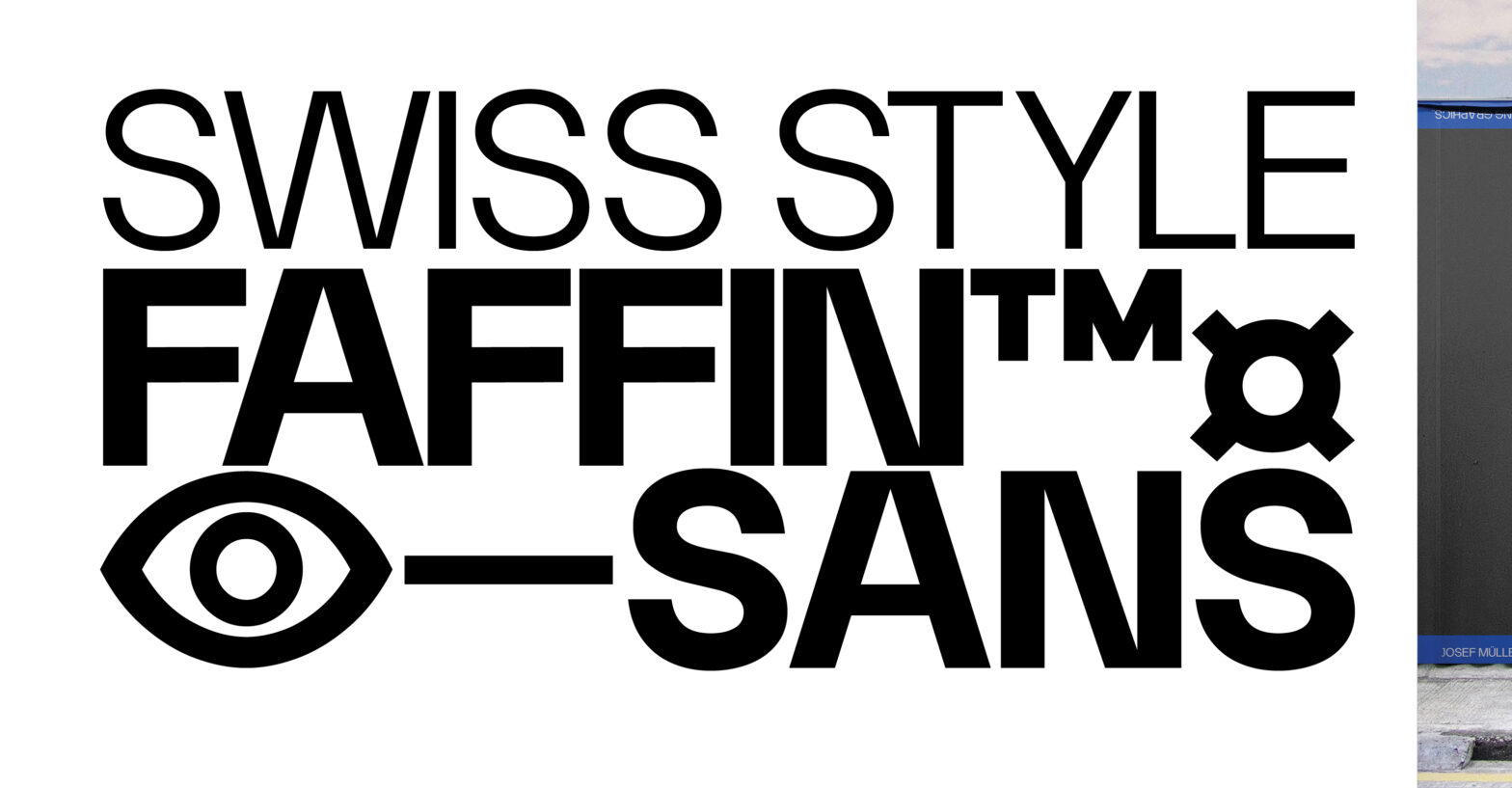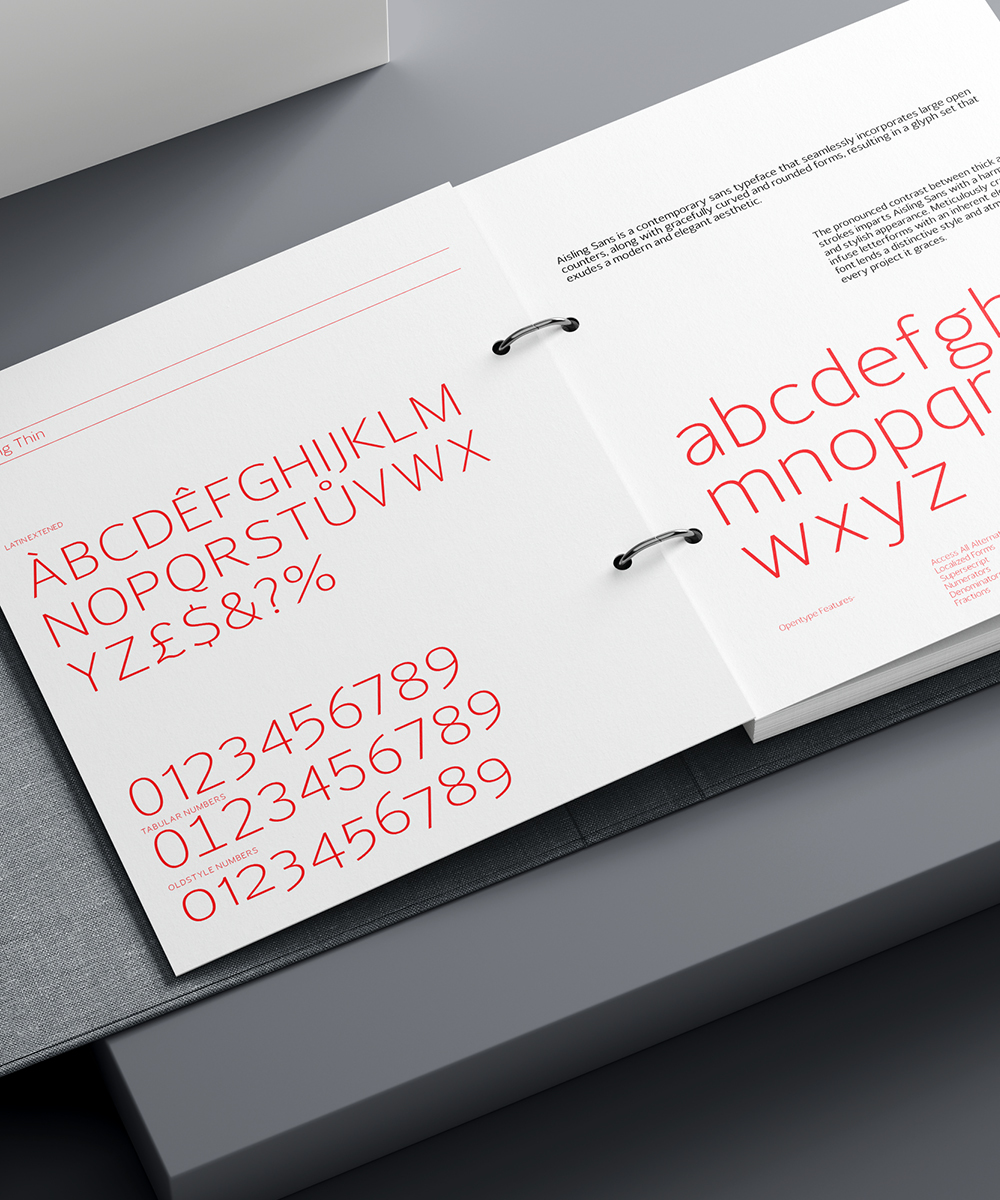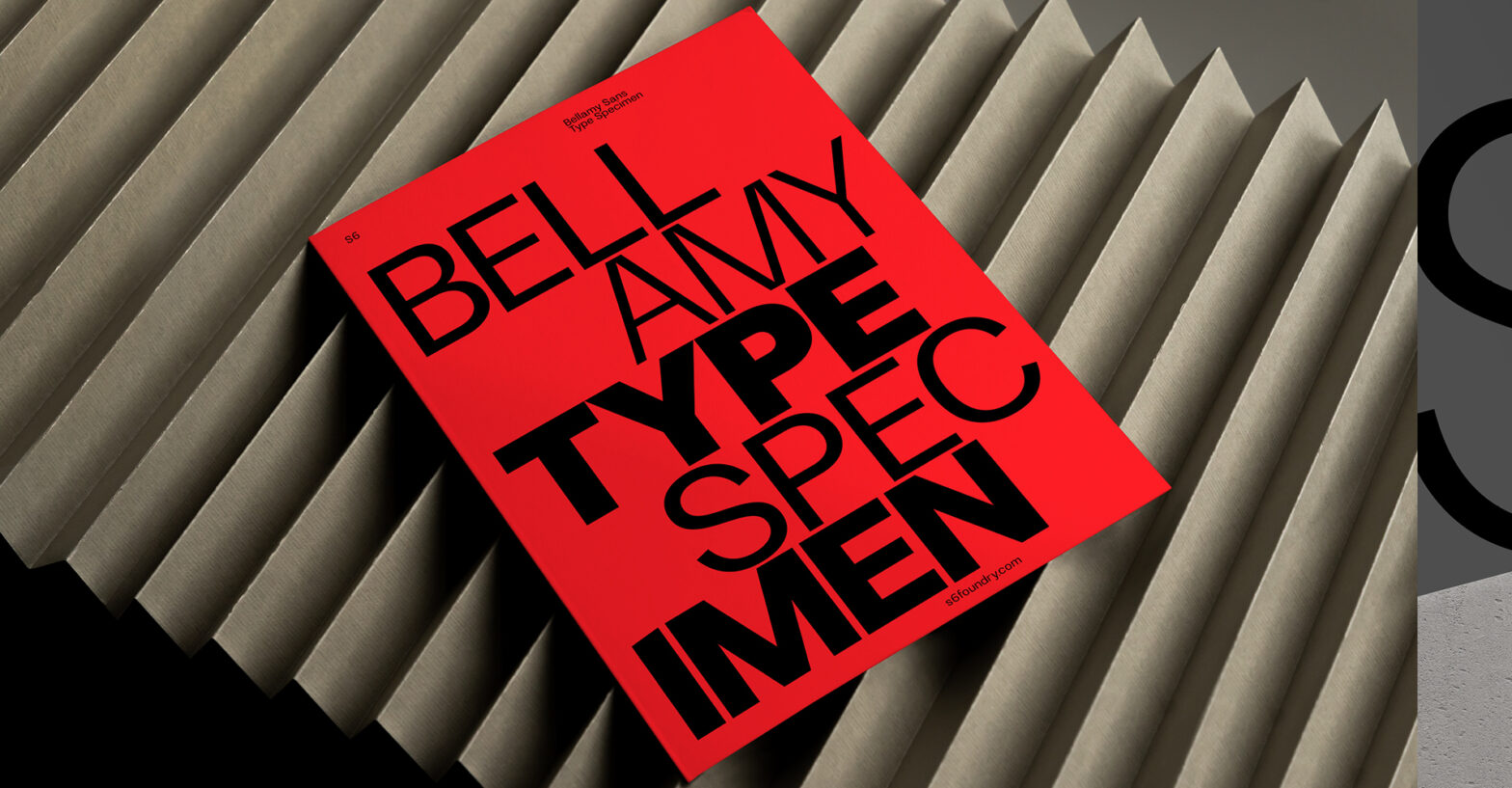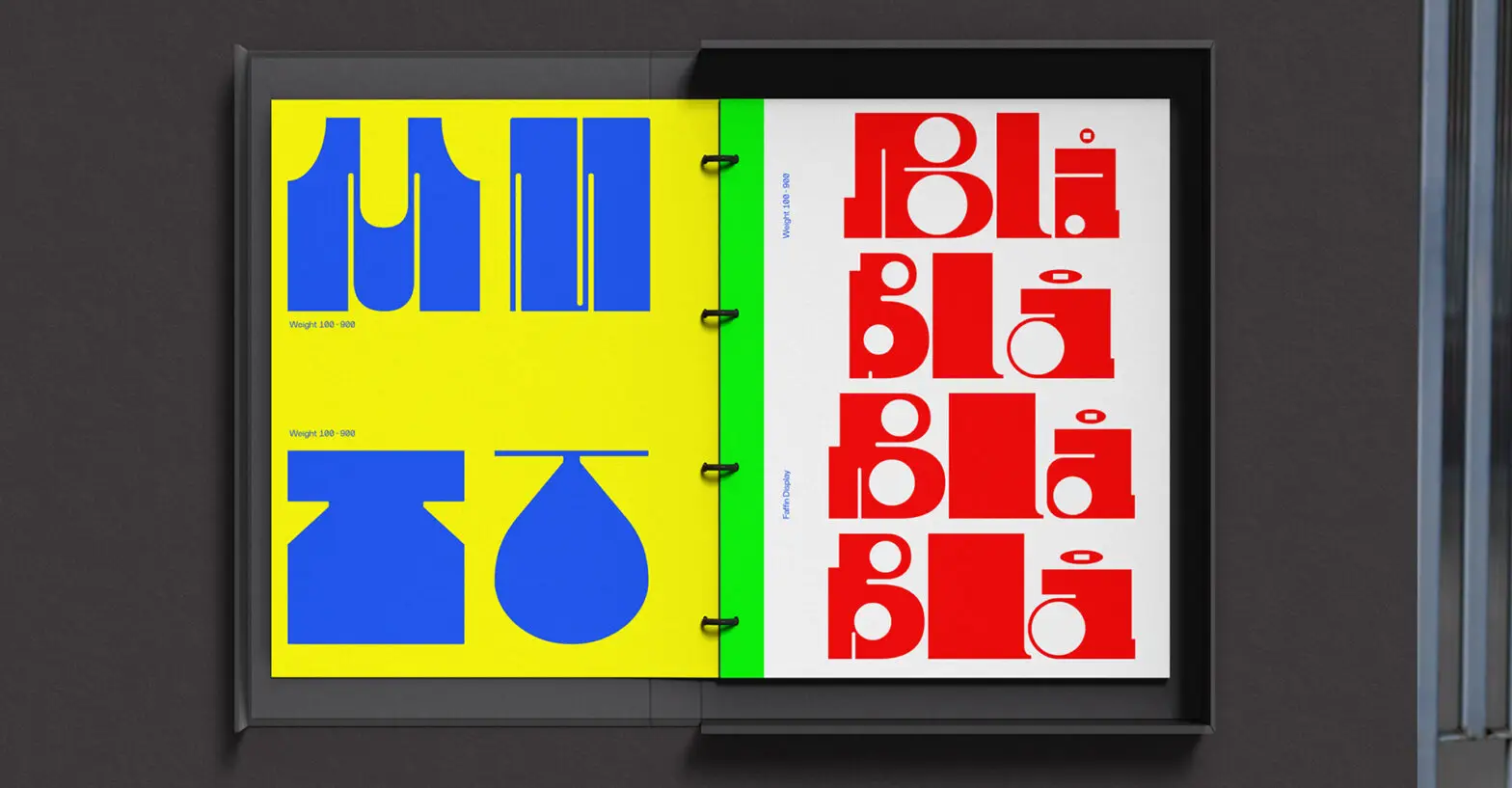
Faffin Display Expressive Display Typeface 9 styles Buy Faffin Display → Contact us for Trial & Variable Versions → Size Letter Spacing0 px Regular 100/200/300/400/500/600/700/800/900 Faffin Display is an expressive typeface designed for large-scale typography and strong visual impact. Exaggerated proportions, sharp detailing and dramatic contrasts give the family an energetic and immediately recognisable voice.… Continue reading Faffin Display
Rotary Sans Rounded Sans Serif 7 styles Buy Rotary Sans → Contact us for Trial Versions → Size Letter Spacing0 px Regular Thin/Light/Book/Regular/Medium/Bold/ExtraBold Rotary Sans is built from rounded geometry, smooth transitions and balanced proportions. Its soft curves create an approachable typographic voice while the controlled underlying structure keeps the family clear, dependable and visually… Continue reading Rotary Sans
Babel Sans Grotesk Sans Serif 10 styles Buy Babel Sans → Contact us for Trial Versions → Size Letter Spacing0 px Regular Thin/ExtraLight/Light/Book/Regular/Medium/SemiBold/Bold/ExtraBold/Black Babel Sans is a versatile grotesk built for communication in all its forms. Its direct construction, open rhythm and carefully controlled details give language a clear presence while retaining enough personality to… Continue reading Babel Sans
Arlo Sans Geometric Sans Serif 6 styles Buy Arlo Sans → Contact us for Trial Versions → Size Letter Spacing0 px Regular Light/Book/Regular/Medium/Bold/Black Arlo Sans is a geometric sans serif built around simplicity, balance and everyday usability. Its open forms, measured proportions and restrained detailing create a clear typographic voice without making the family feel… Continue reading Arlo Sans
Bellamy Sans Humanist Geometric Sans Serif 8styles Buy Bellamy Sans → Contact us for Trial Versions → Size Letter Spacing0 px Regular Light/Book/Regular/Medium/SemiBold/Bold/ExtraBold/Black Bellamy Sans brings humanist movement into a geometric framework. Its open forms, balanced proportions and subtly modulated shapes create a typeface that feels ordered and dependable, but never rigid or impersonal. Designed… Continue reading Bellamy Sans
Aisling Sans Soft Humanist Sans Serif 10 styles Buy Aisling Sans → Contact us for Trial Versions → Size Letter Spacing0 px Regular Thin/Light/Extra Light/Book/Regular/Medium/SemiBold/Bold/Extra Bold/Black Aisling Sans combines open proportions and gentle curves with a clear, controlled structure. Its subtle humanist influence creates a voice that feels approachable and refined, bringing warmth to communication… Continue reading Aisling Sans
RNA Sans Technical Sans Serif 10 styles Buy RNA Sans → Contact us for Trial Versions → Size Letter Spacing0 px Regular Thin/ExtraLight/Light/Book/Regular/Medium/SemiBold/Bold/Black RNA Sans is shaped by modular structure, technical precision and a compact visual rhythm. Sharp geometry and controlled spacing give the family a highly engineered voice while maintaining the clarity required for… Continue reading RNA Sans
Faffin Sans Geometric Grotesk Sans Serif 12 Styles / 6 Weights Buy Faffin Sans → Contact us for Trial Versions → Size Letter Spacing0 px Regular Light/Book/Regular/Medium/SemiBold/Bold Size Letter Spacing0 px Regular Light Italic/Book Italic/Regular Italic/Medium Italic/SemiBold Italic/Bold Italic Faffin Sans is built from clear geometric structures, balanced by optical adjustments that keep the forms… Continue reading Faffin Sans
Alskar Extended Geometric Sans Serif 6 styles Buy Alskar → Contact us for Trial Versions → Size Letter Spacing0 px Regular Thin/Light/Regular/Bold/Black Alskar Extended uses broad proportions and strong geometric construction to give typography an immediate architectural presence. Its open forms create a measured horizontal rhythm, allowing language to feel expansive, confident and firmly… Continue reading AlskarAlskarAlskar
VERTICAL SANS Ultra-Condensed Sans Serif 3 styles Buy Vertical Sans → Contact us for Trial Versions → Size Letter Spacing0 px Regular Light/Regular/Bold Built to stand tall. Vertical Sans is defined by compression. Tall proportions and extremely narrow character widths create a dense vertical rhythm while carefully controlled counters preserve clarity. Its character comes not… Continue reading Vertical Sans